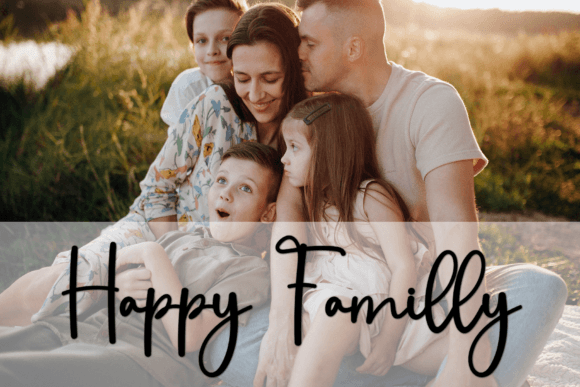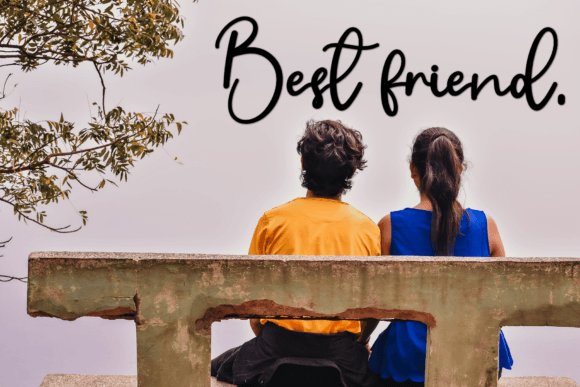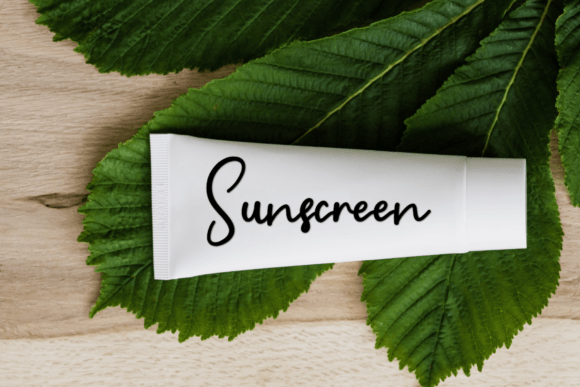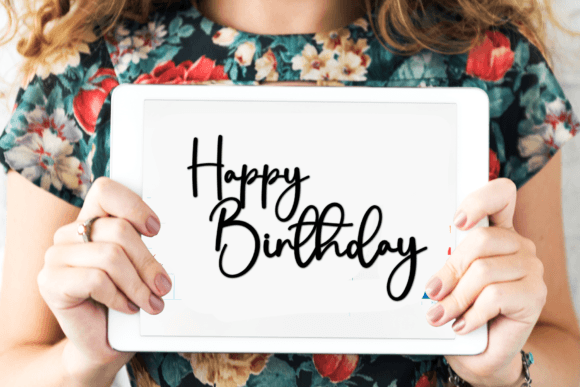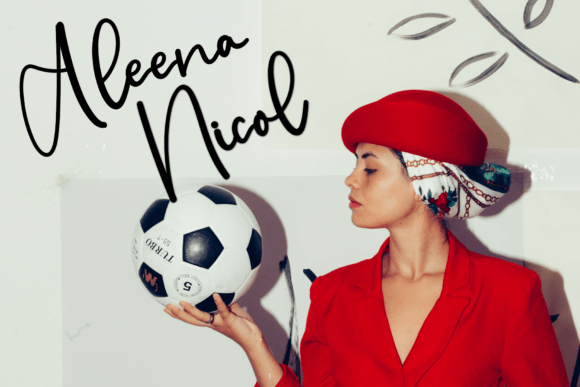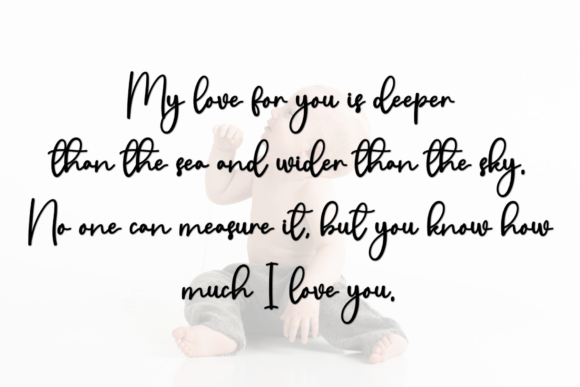
The Perfect Match: Elevate Your Designs with Babysitter Font
As I sat at my desk, staring at a blank sheet of paper, I knew exactly what my design project needed – a dash of elegance and a pinch of personality. And that’s when I remembered Babysitter Font, a modern and charming handwritten font that adds a touch of sophistication to any project.
Babysitter Font is more than just a font – it’s an extension of your personal style. Its flowing strokes and refined character make it perfect for upscale invitations, personal branding, and chic editorial designs. Whether you’re a seasoned designer or a creative entrepreneur, Babysitter Font is a valuable addition to your toolkit.
Babysitter Font Key Features
- Unique Characteristic: The font features a playful and whimsical design, making it perfect for creating a fun and child-friendly atmosphere.
Babysitter Font Review
I recently had the chance to work with the Babysitter Font, and I must say it’s a unique addition to any design project. Here’s my honest review.
- The font’s playful and childlike vibe is perfect for designs targeting young parents or families.
- The bold and cursive style makes it ideal for headings and titles, adding a touch of whimsy to any layout.
- The font’s versatility allows it to be used in a variety of contexts, from children’s products to educational materials.
- The font may not be suitable for formal or professional designs, as it can come across as too casual.
- The cursive style can be difficult to read at small font sizes, potentially leading to eye strain.
- The font’s playful nature may not translate well to complex or technical content.
Overall, the Babysitter Font is a fun and creative addition to any design project. While it may have some limitations, it’s a great choice for designs targeting young audiences or requiring a playful tone. Just be mindful of its potential drawbacks and use it accordingly.
Tips for Getting the Most Out of the Babysitter Font
Use the Babysitter Font in bold or italic styles to add emphasis and create visual interest. Pair it with playful graphics and illustrations to create a fun and engaging design. Experiment with different font sizes and colors to find the perfect combination for your project.
The Babysitter Font is perfect for projects related to children, such as: children’s party invitations, nursery rhyme posters, daycare branding, children’s clothing line logos, and educational presentations. Its playful and fun design makes it ideal for projects that require a lighthearted and engaging tone.
Alternatives to Babysitter Font
The Great Vibes Font is a beautiful, elegant script font that is perfect for creating a sense of playfulness and sophistication. It’s ideal for use in designs that require a touch of whimsy, such as invitations, posters, and branding materials.
Compared to Babysitter Font, Great Vibes Font has a more refined and polished look, making it suitable for a wider range of design applications.
The Alex Brush Font is a elegant, handwritten font that is perfect for creating a sense of warmth and personality. It’s ideal for use in designs that require a touch of humanity, such as wedding invitations, food labels, and product packaging.
Compared to Babysitter Font, Alex Brush Font has a more refined and sophisticated look, making it suitable for use in high-end design applications.